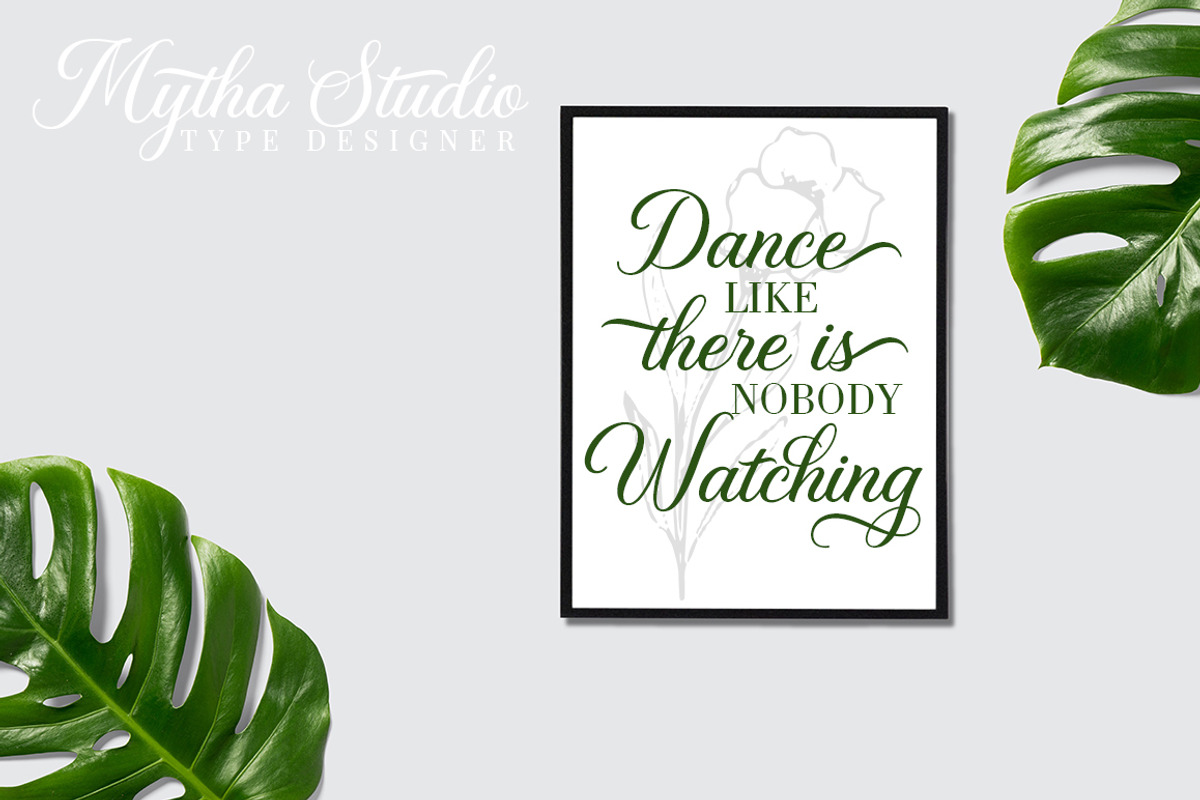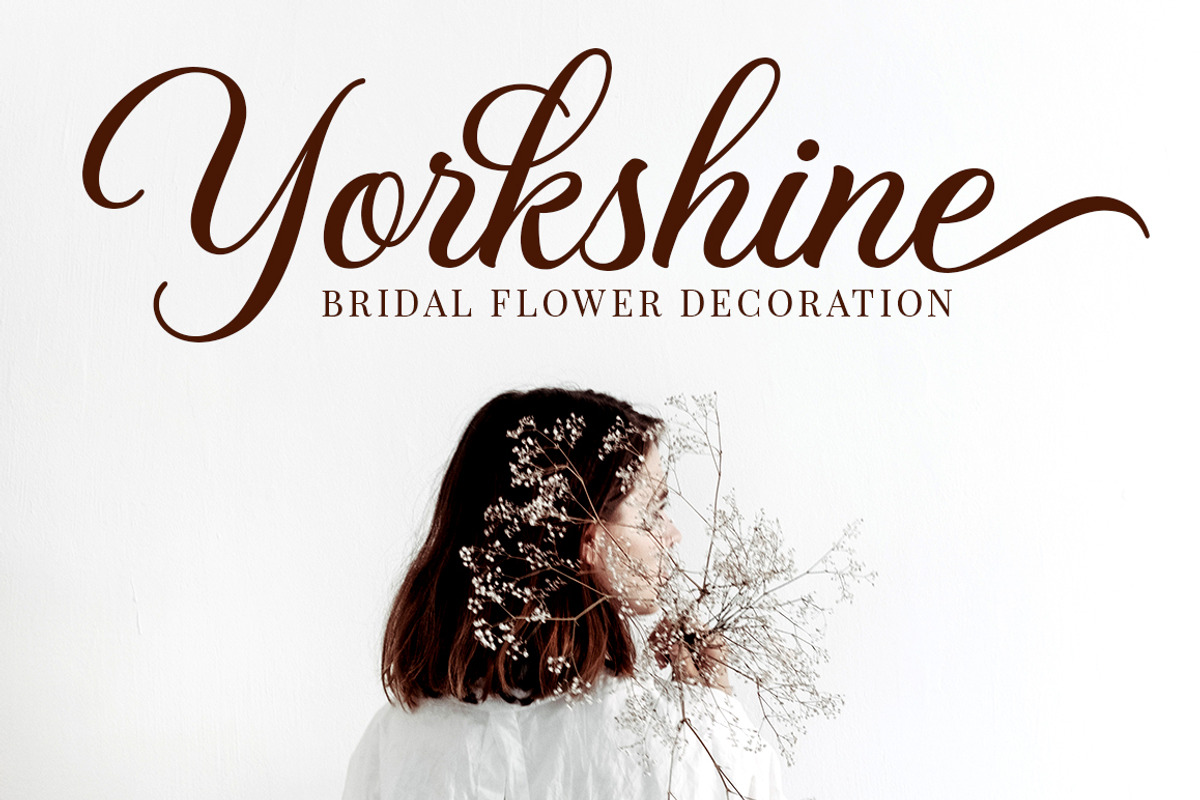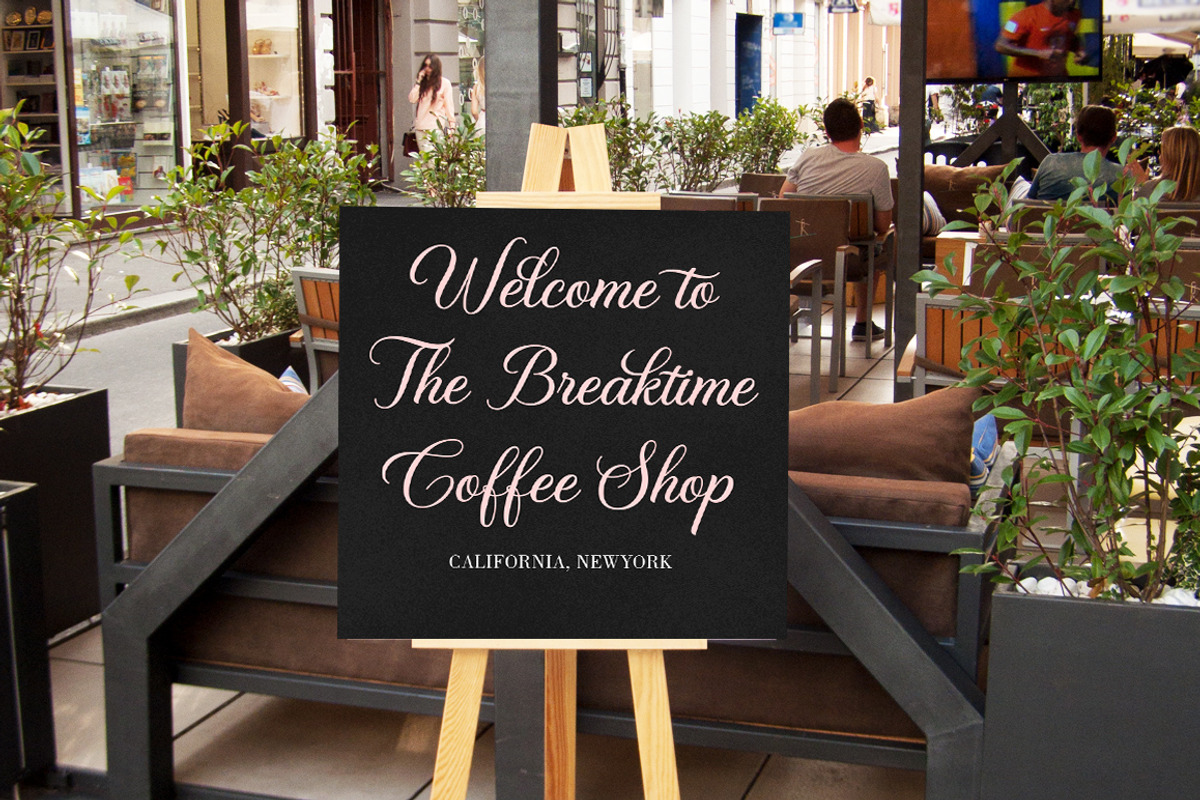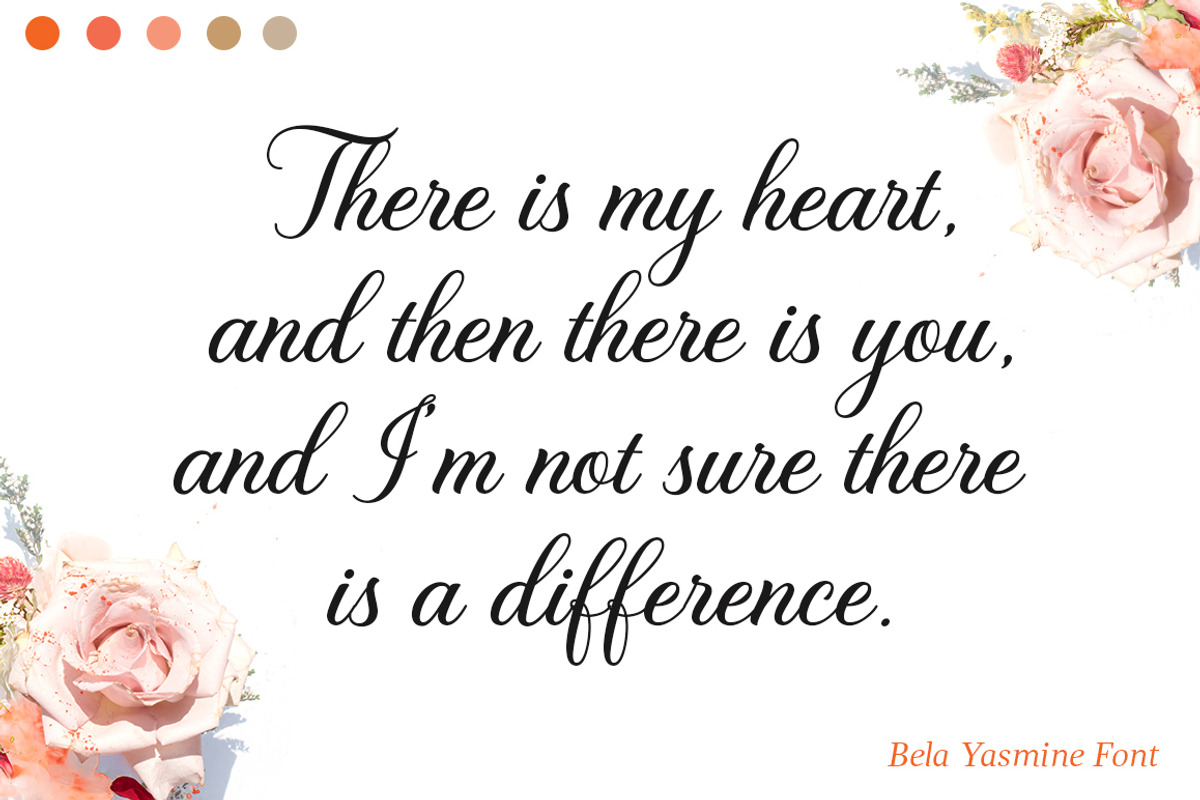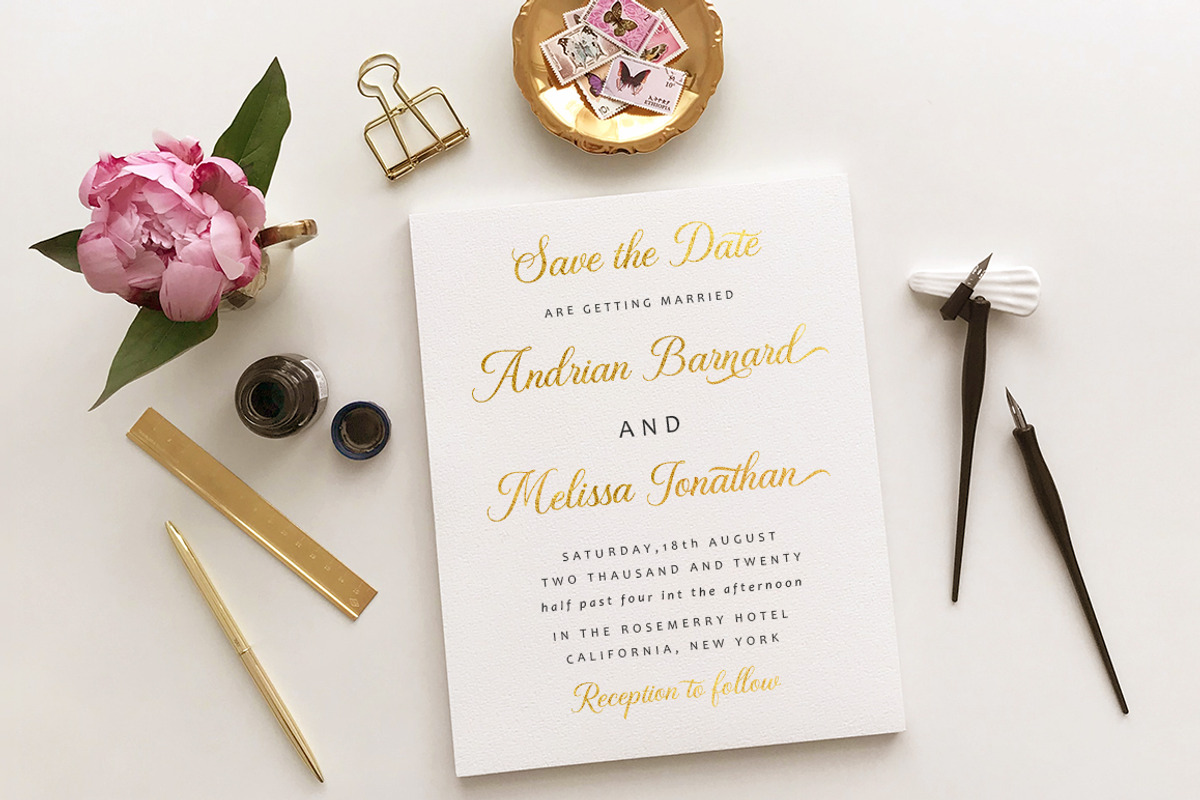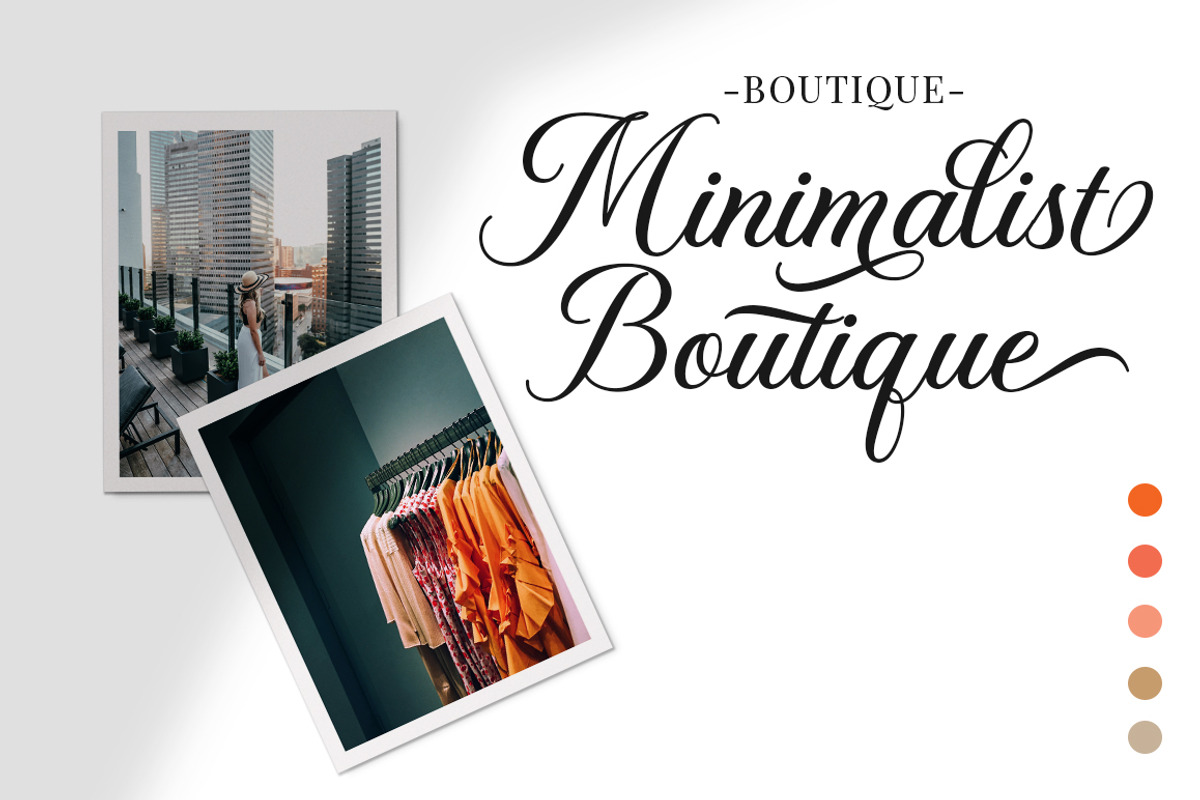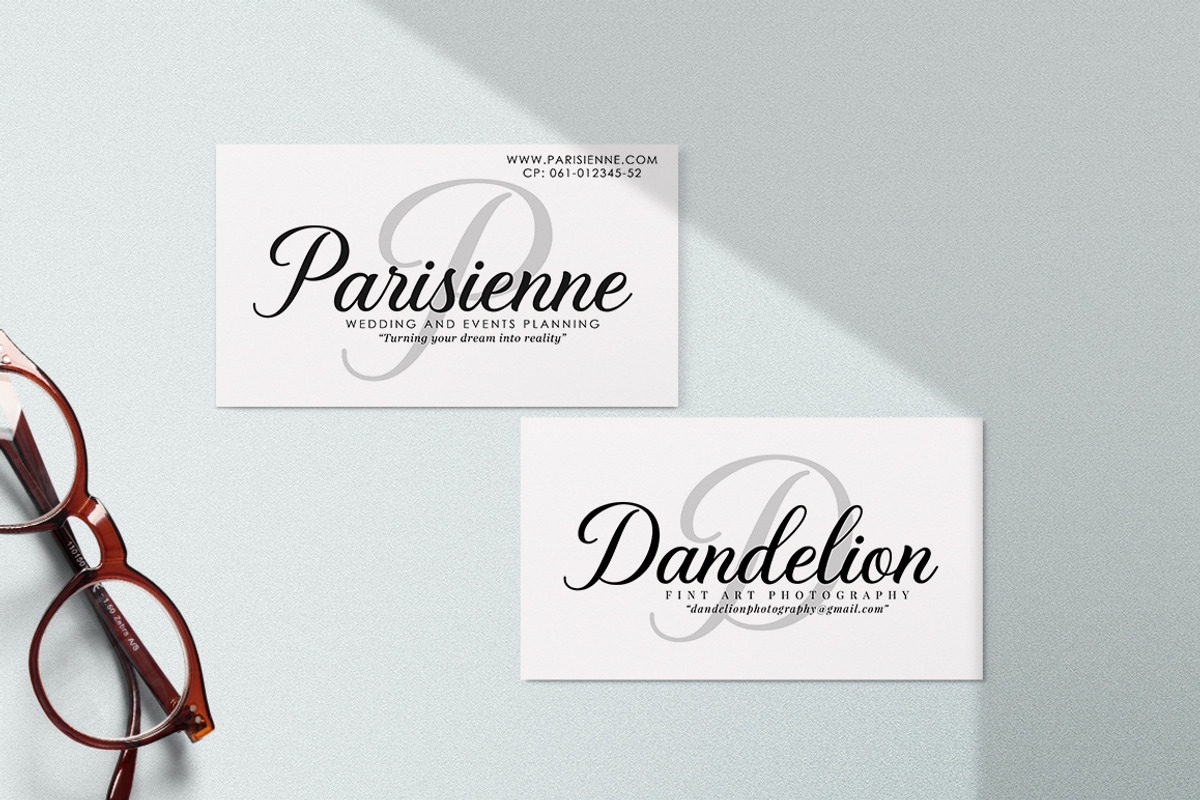
Bela Yasmine - Modern Script
Bela Yasmine Script is a modern calligraphy font that features a varying baseline, smooth line, classic and elegant touch. Can be used for various purposes.such as headings, signature, logos, wedding invitation, t-shirt, letterhead, signage, lable, news, posters, badges etc.
I made this Bela Yasmine Font inspired by the concept of calligraphy classic and made it into a modern style, and I also added some ligature and alternatives that were very interesting when we applied it. I also tried to execute in a different way so as to produce this Bela Yasmine Script font.